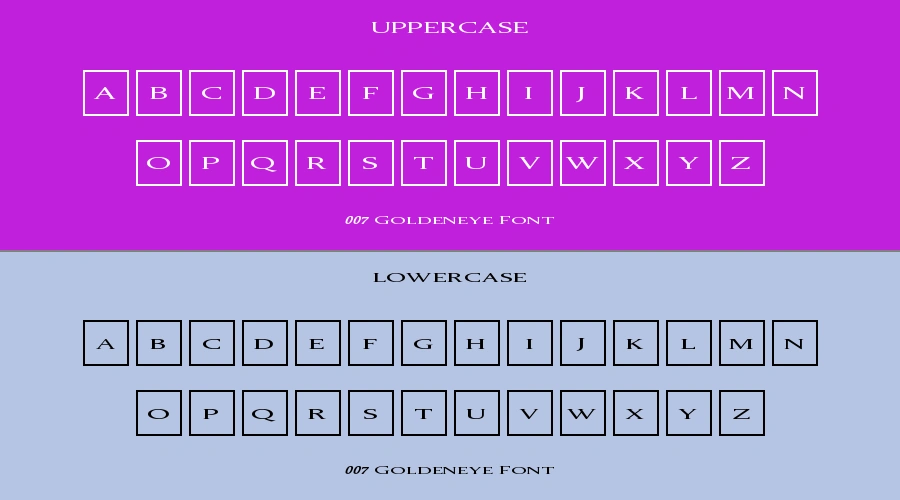
About 007 Goldeneye Font
Designed with precision, 007 Goldeneye Font merges geometric precision with functionality in every character. This versatility makes it particularly effective for government publications, where adaptability and cultural resonance directly impact communication quality. Each letterform demonstrates meticulous craftsmanship.
Technical excellence shines through elements like width contrast and historical alternates, enhancing typographic versatility. In campaign headers settings, 007 Goldeneye Font proves its worth through superior headline impact. The thoughtful execution of descender depth and user perception ensures professional results.